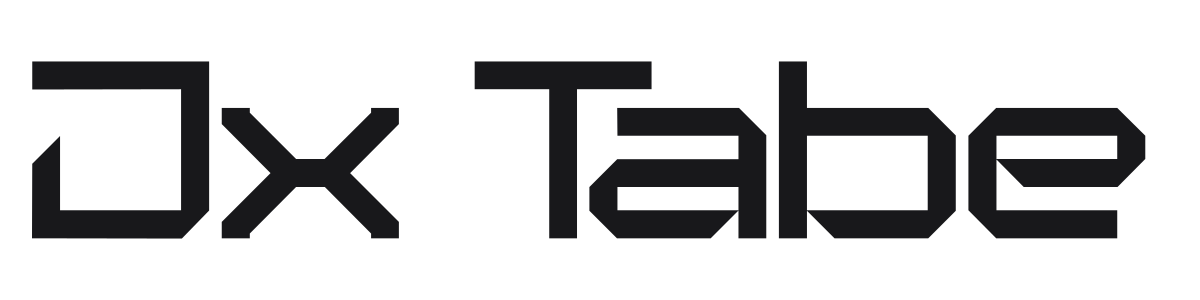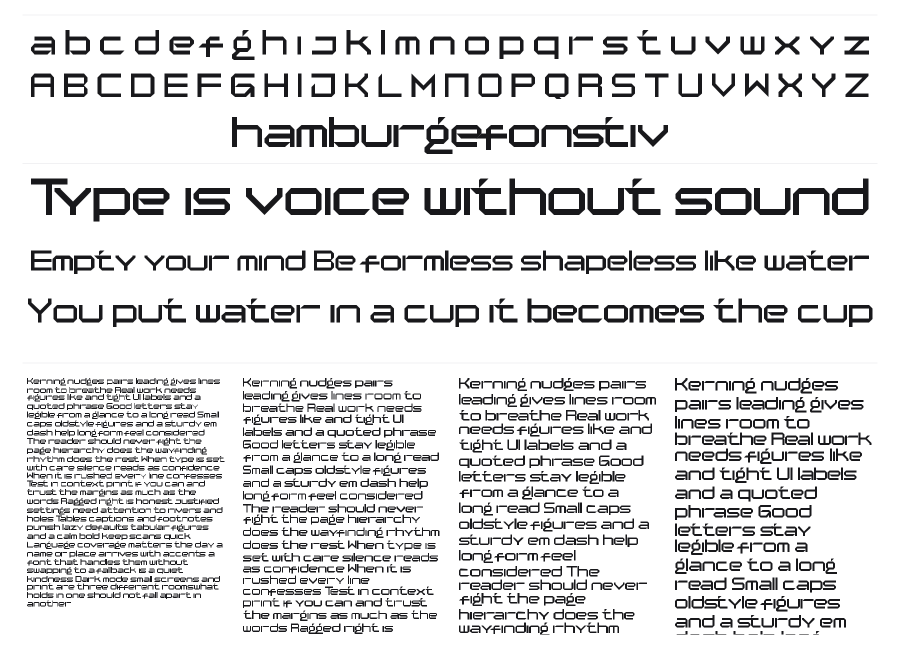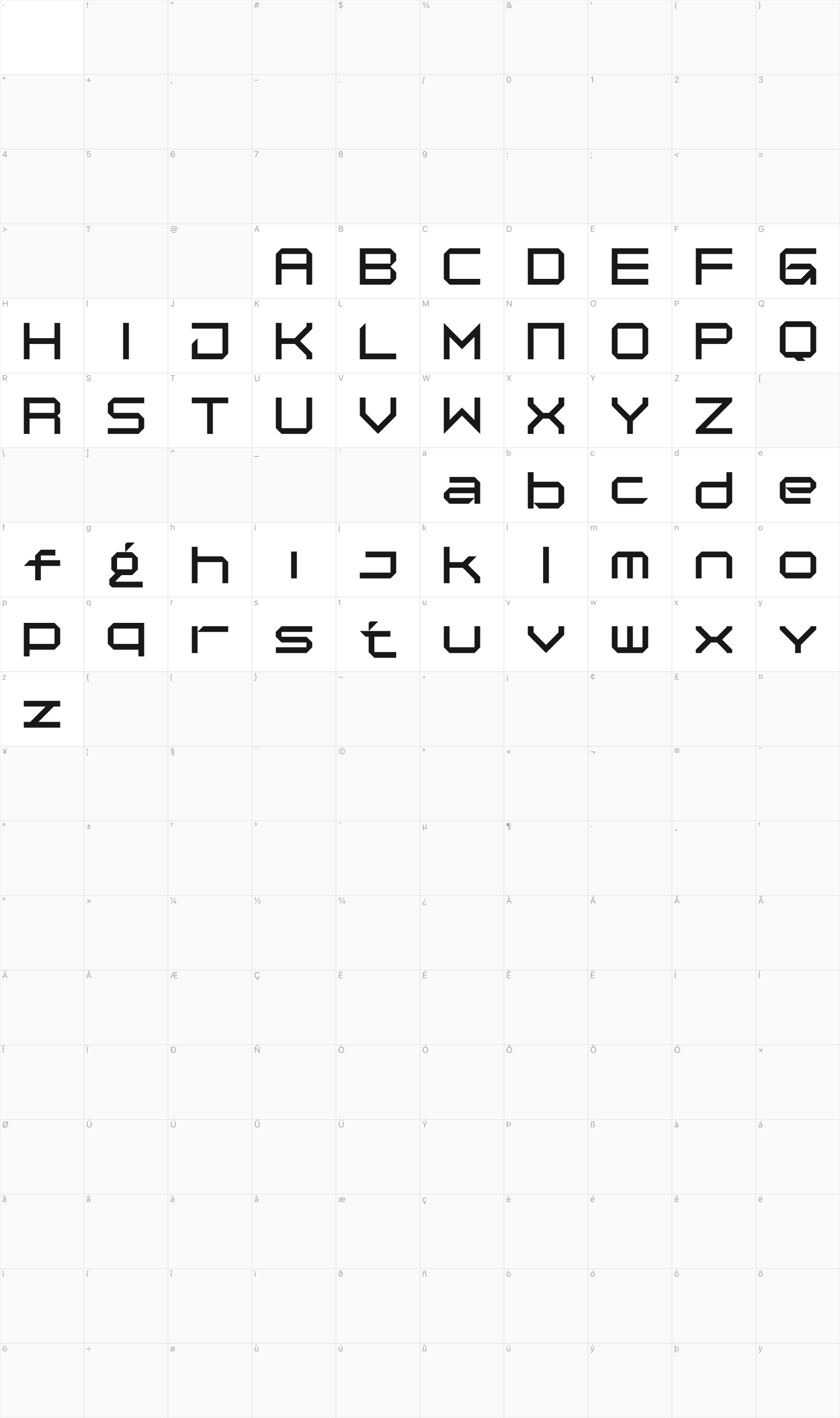
Jx Tabe
Jx Tabe is a geometric techno sans-serif drawn from the aesthetics of robotics and industrial machinery. Flat-cut terminals and modular stroke construction give each character a precise, assembled quality without tipping into cliche grid-font territory. It carries enough personality for logos and headline work while staying clean enough for interface mockups and editorial contexts.